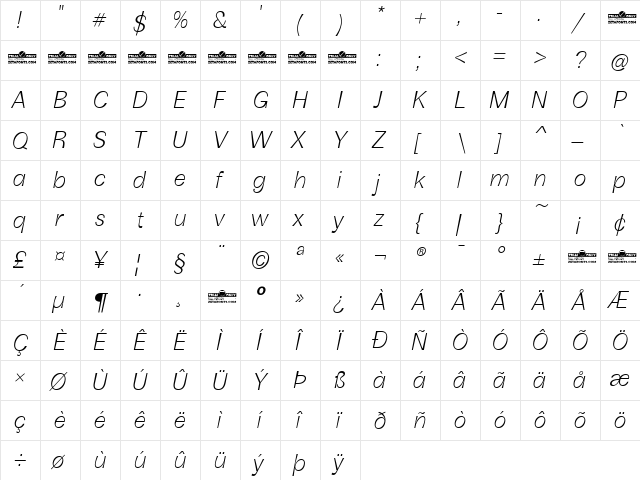
Boring Sans B Trial Light Italic
| Foundry | Zetafonts |
| Designer | Cosimo Lorenzo Pancini |
Design Context for Boring Sans B Trial Typeface
Boring Sans B Trial offers clean, dependable letterforms without strong stylistic allegiance, making it a practical choice for designers who need flexibility. Its italic angle brings a sense of urgency and motion to the letterforms. Its slender proportions lend an understated elegance to any composition.